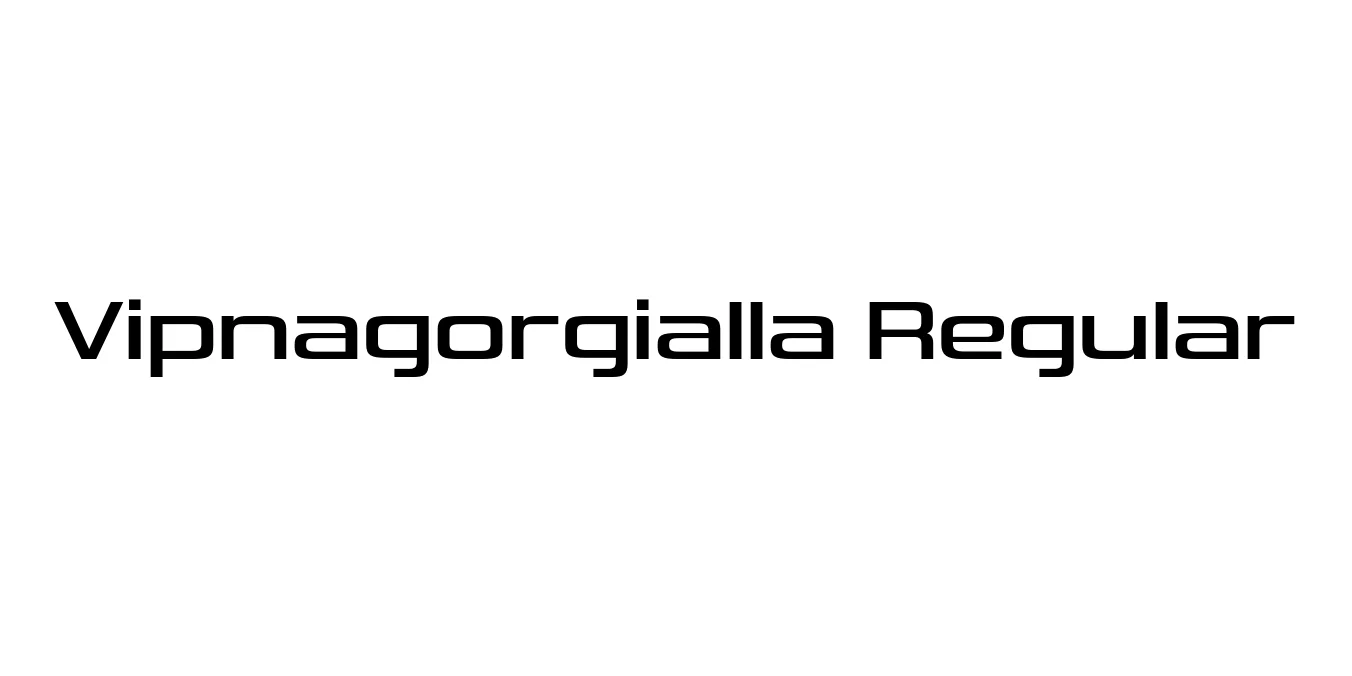
Vipnagorgialla Regular
Designed by Ray Larabie
| Font Name | Vipnagorgialla |
| Category | Techno / Display |
| Designer | Ray Larabie |
| Similar Fonts | Eurostile, Microgramma, Bank Gothic, Orbitron |
Vipnagorgialla Regular is a striking techno-display typeface created by the prolific designer Ray Larabie of Typodermic Fonts. This typeface draws heavily from 1970s science fiction aesthetics and futuristic industrial design, characterized by its squarish, modular letterforms and subtly rounded corners. Its geometric architecture evokes a sense of high-tech precision and robotic sophistication, making it a standout choice for projects requiring a modern, computerized look.
Beyond its sci-fi roots, Vipnagorgialla is highly effective in branding and digital media where impact is paramount. The font's wide horizontal stance and clean lines provide excellent legibility in large-scale applications such as signage and architectural lettering. Since its introduction, it has become a favorite for designers working within the gaming industry, cyberpunk-themed media, and contemporary corporate identities that want to project a forward-thinking image.
Vipnagorgialla Regular Best Uses
Excellent for user interface elements and logo designs in futuristic or sci-fi games.
Strong choice for technology startups and engineering firms seeking a modern, stable look.
Ideal for headlines, posters, and billboards where a bold, geometric presence is needed.